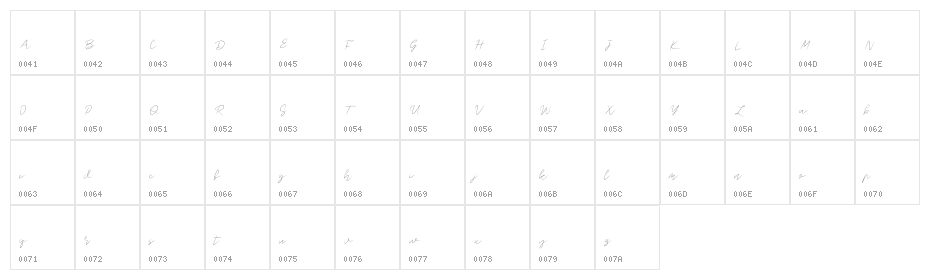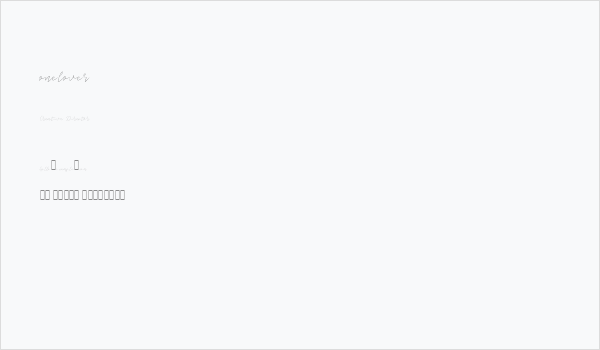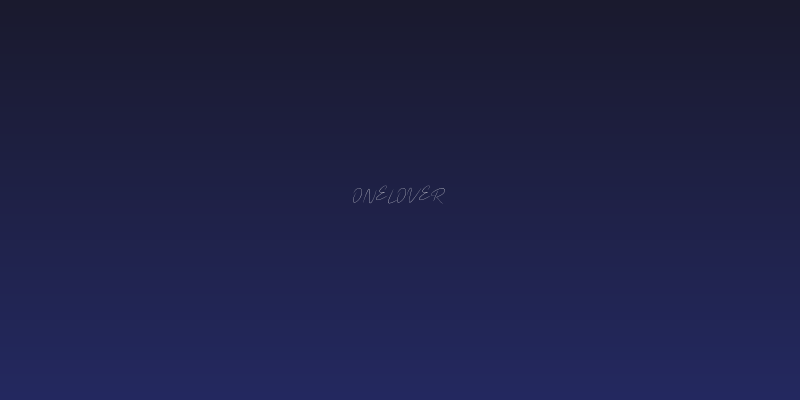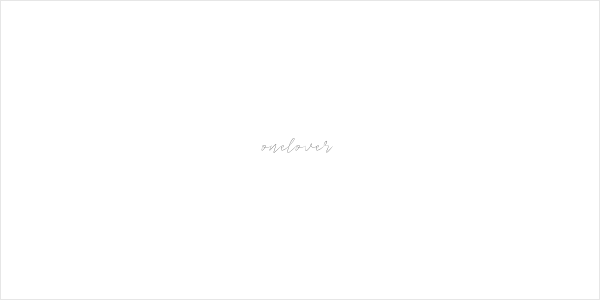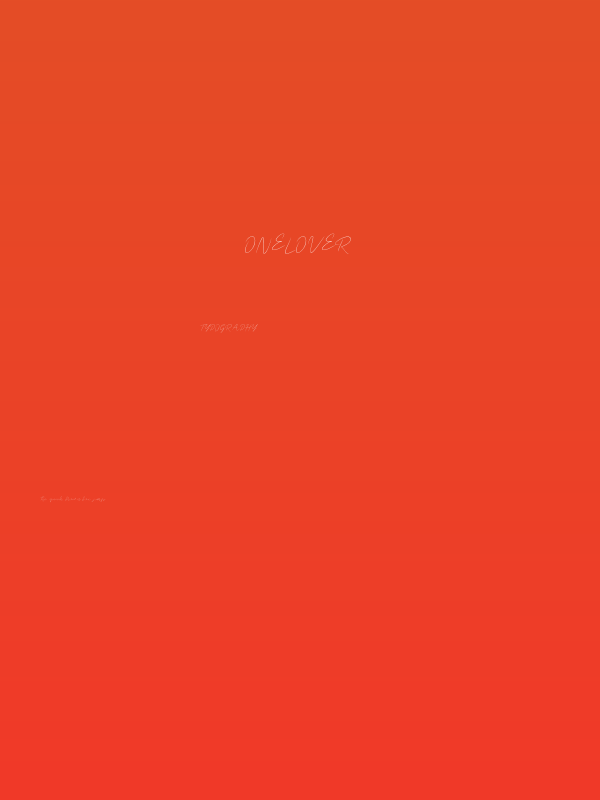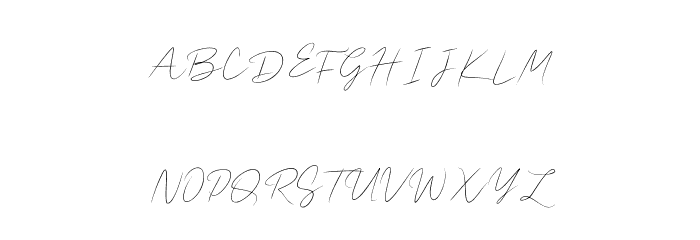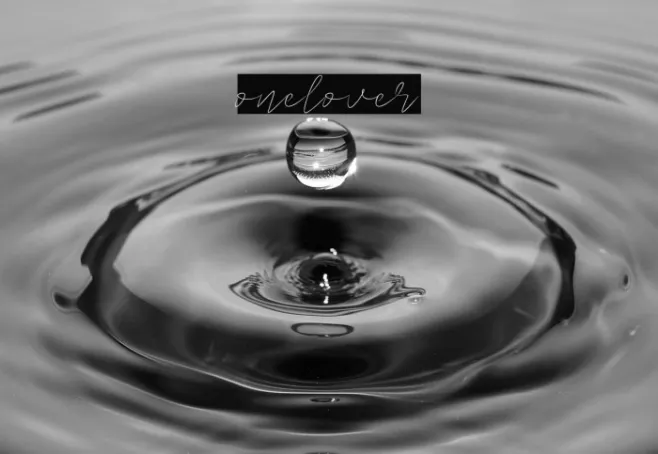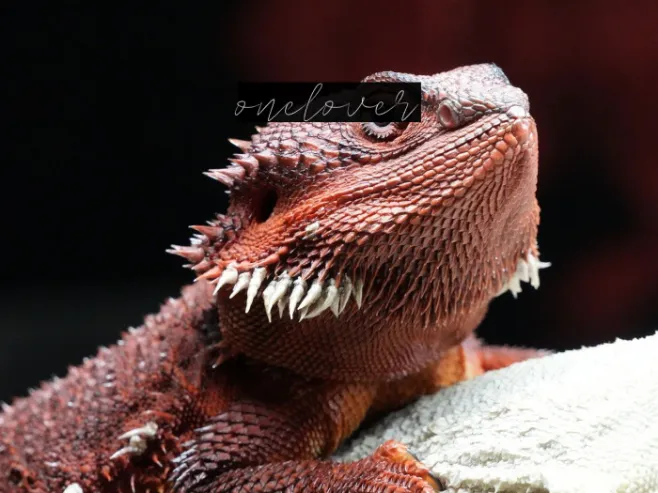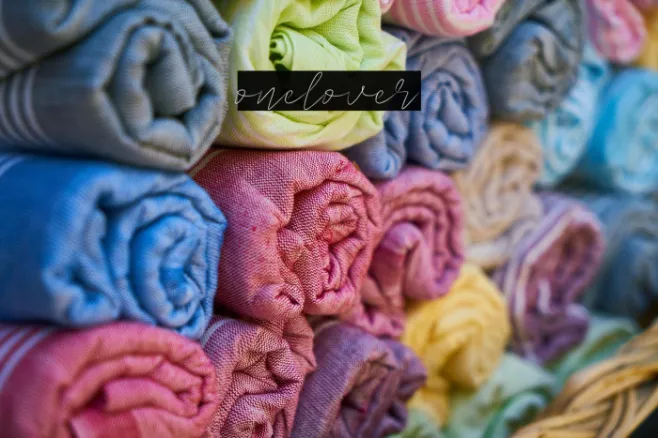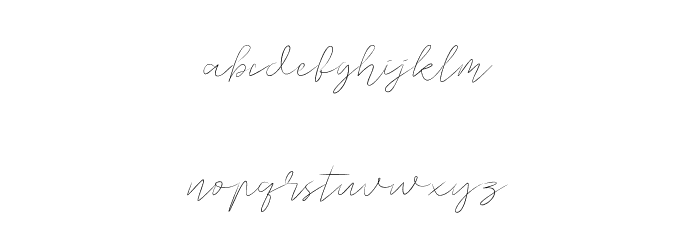
onelover Font
onelover Description
This font features an elegant, flowing script style that mimics natural handwriting. The letters are connected, creating a seamless and fluid appearance. The strokes are thin and delicate, giving the font a light and airy feel. It maintains a consistent slant throughout, enhancing its cursive nature. The uppercase letters are slightly larger and more ornate, while the lowercase letters are more subdued, maintaining readability. This font exudes a sense of sophistication and grace, making it ideal for formal occasions or artistic projects.
| Proposed Projects | Ideal for wedding invitations, greeting cards, personal branding, and artistic projects. |